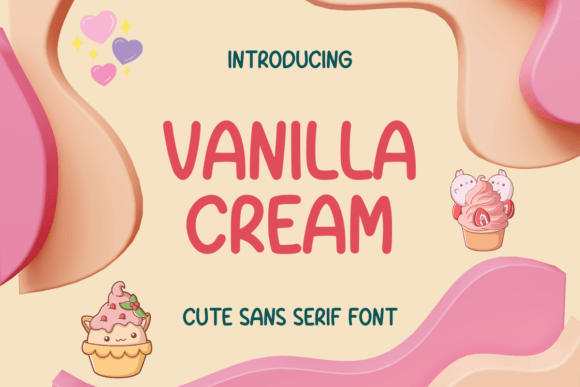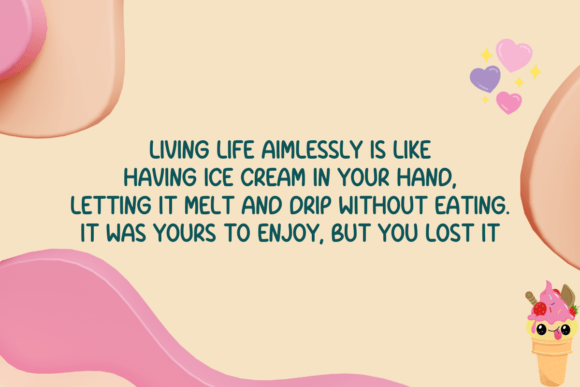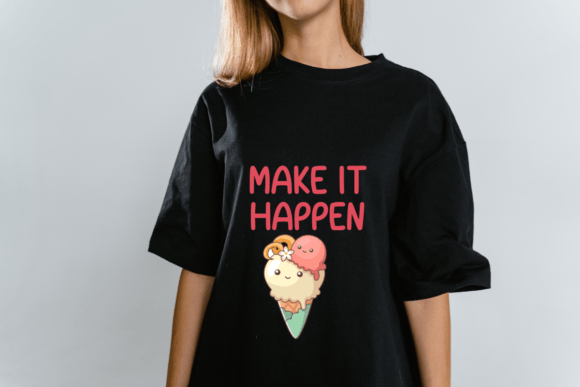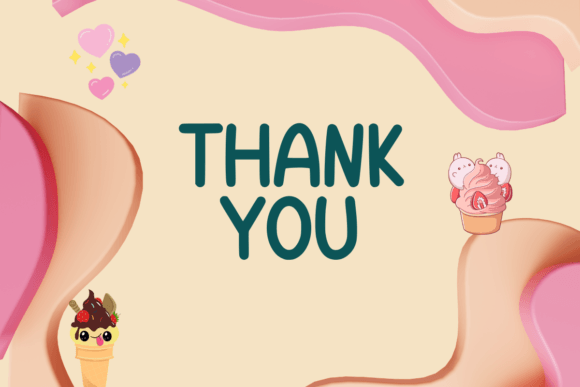
Vanilla Cream Font
Vanilla Cream is a cute sans serif font. That is suitable for perfecting your creative projects such as stickers, notes, planners, SVG quotes, t-shirts, wall art, Cricut, craft, embroidery, posters, cards, and many other ideas.